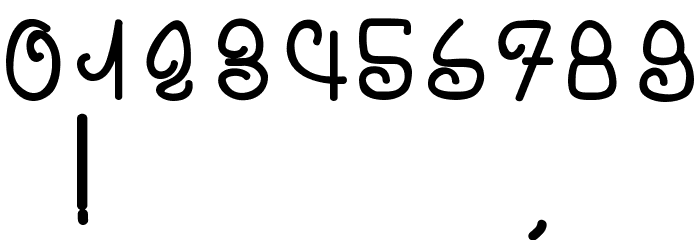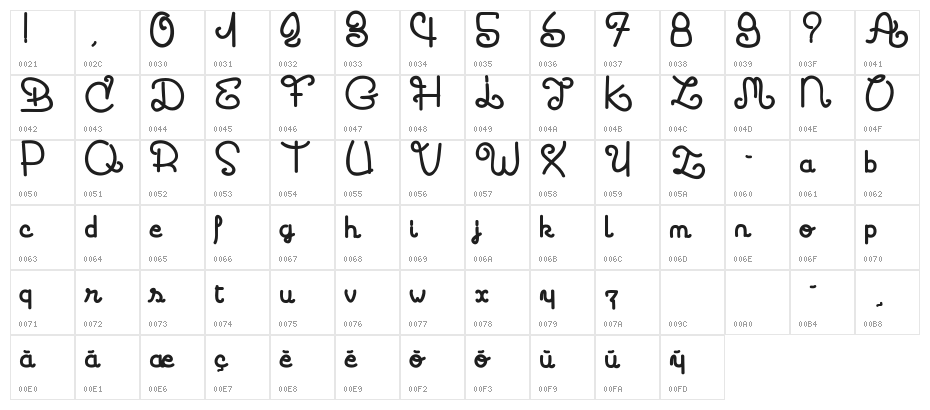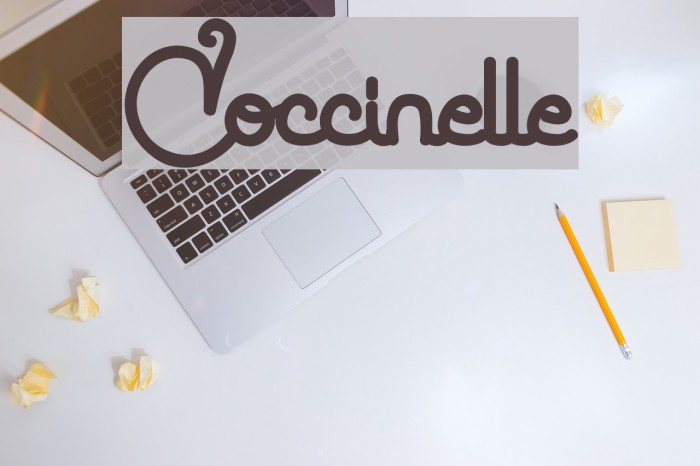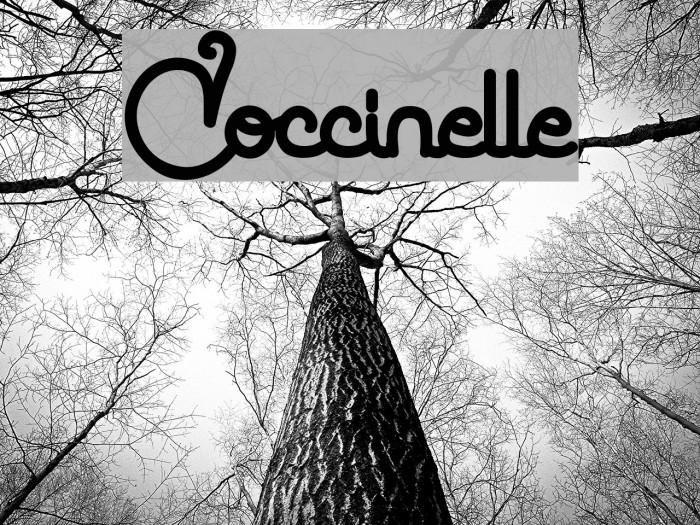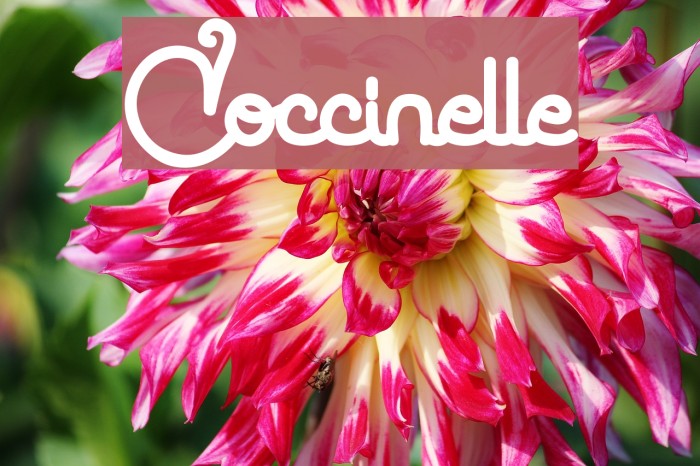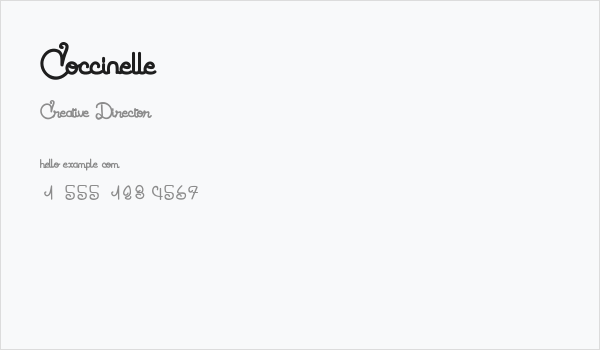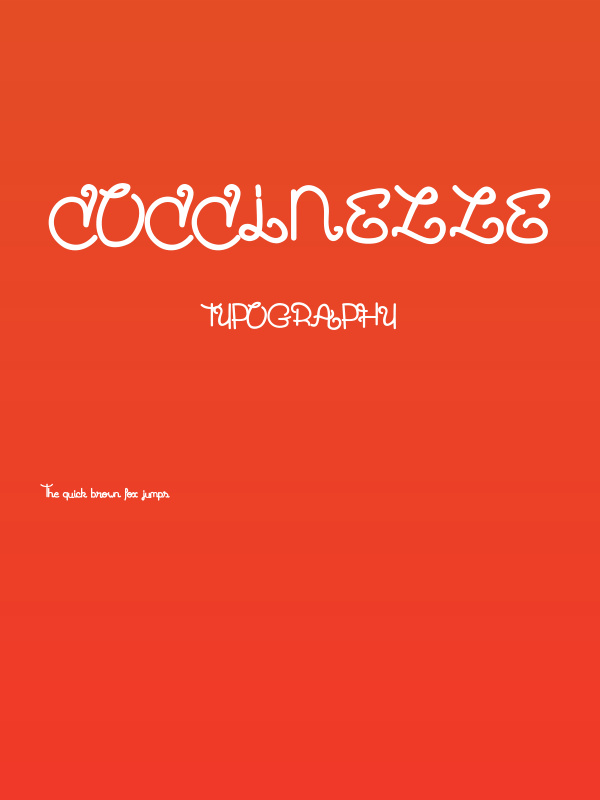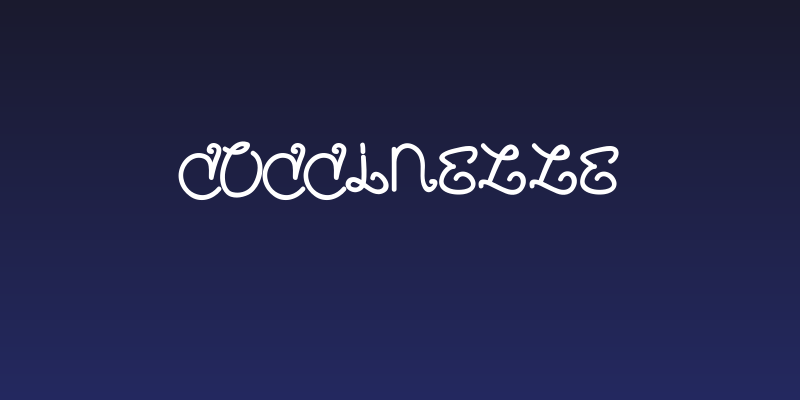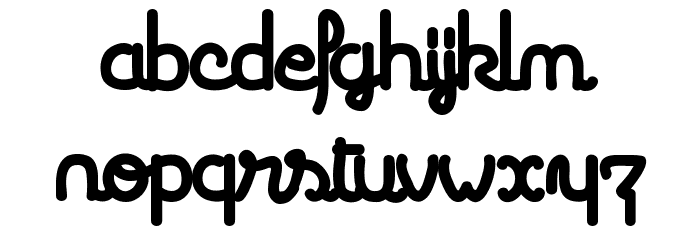
Coccinelle Font
Coccinelle Description
This font features a playful and whimsical design with a handwritten style. The characters are crafted with a continuous, flowing line that gives them a unique, interconnected appearance. The uppercase letters have a distinctive loop and curl, adding to the font's charm and personality. The lowercase letters maintain a consistent style, with rounded forms and smooth curves. The numbers and special characters follow the same playful aesthetic, making them visually cohesive with the rest of the font. This font is ideal for projects that require a fun and informal touch, such as children's books, greeting cards, or playful branding.
| Proposed Projects | Ideal for children's books, greeting cards, playful branding, and creative invitations. |